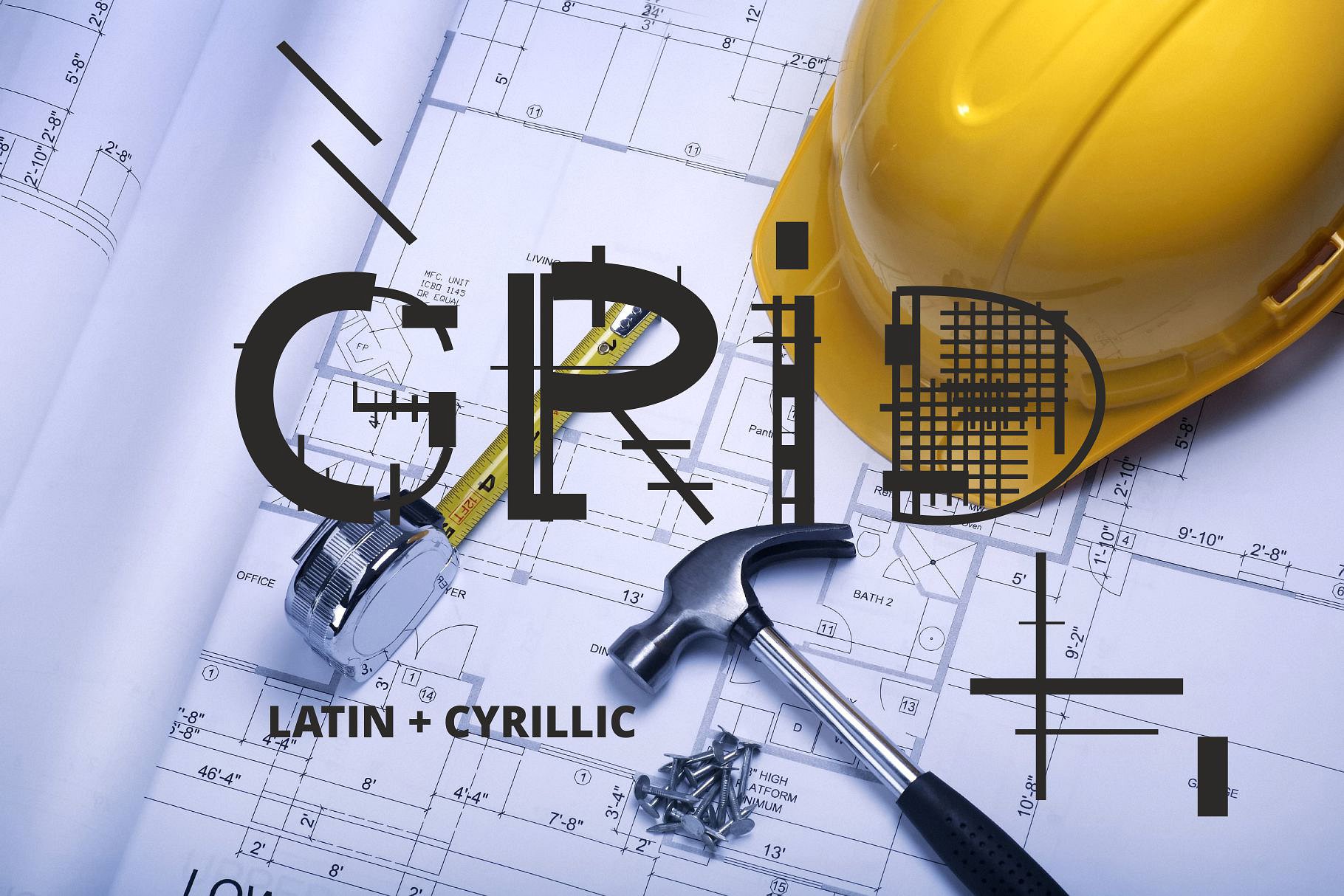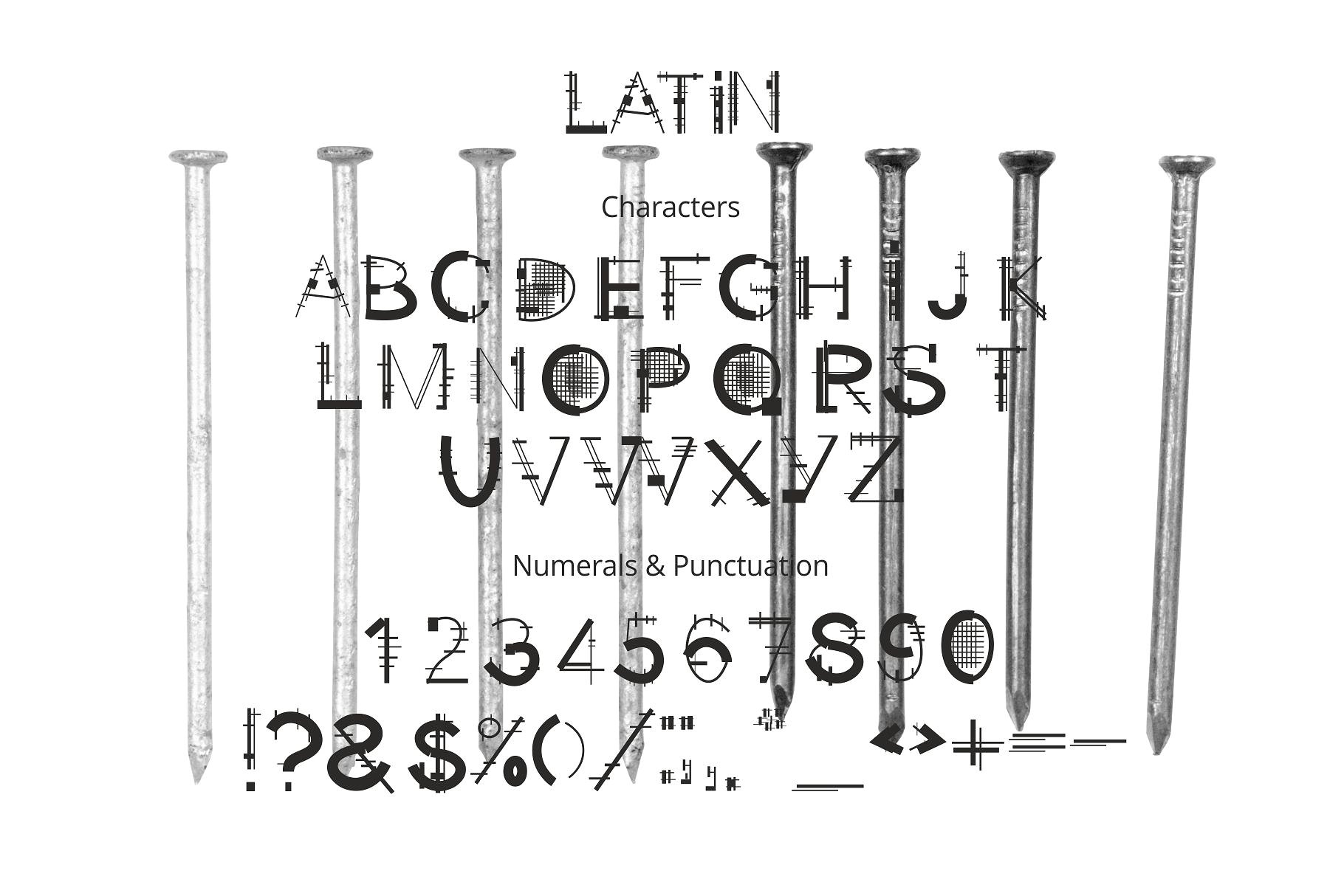
Constructive font – GRID with latin and cyrillic letters! Various construction and engineering elements - a grid of drawings, fittings, frame, inspired me to create this font. GRID font contains latin and cyrillic letter sets, numerals and punctuation. This font work nicely for all sorts of things including t-short design, typographic art, social media images and so much more!
Font features: Standard characters A-Z, 0-9, and punctuation for the Latin Basic and Western European set, Cyrillic А-Я set.